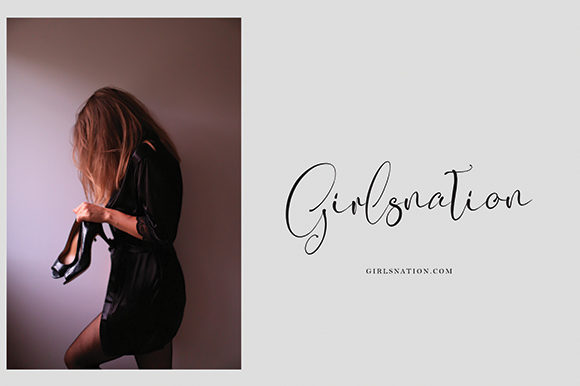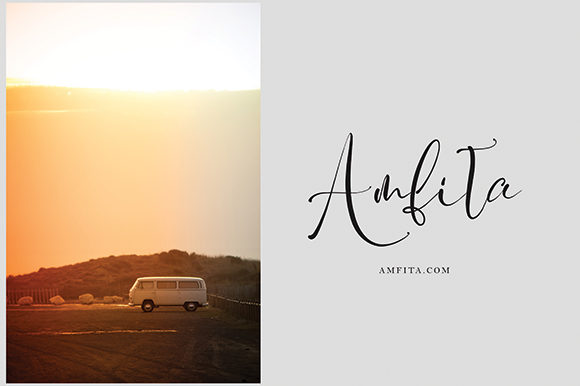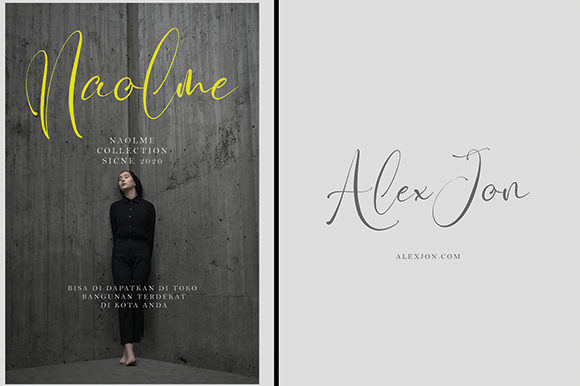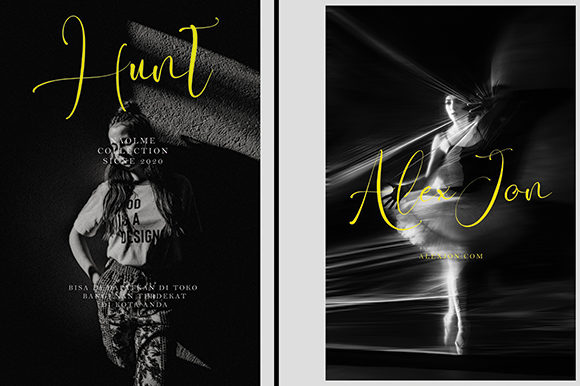
Batosai Font
About Batosai Font
Batosai is a stunning and strong script font that will take any design project to the next level. Get inspired by its modern authenticity!